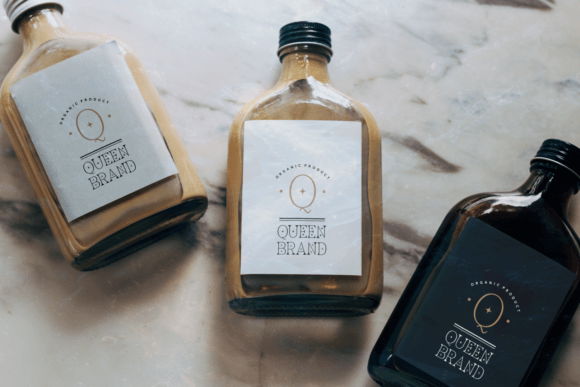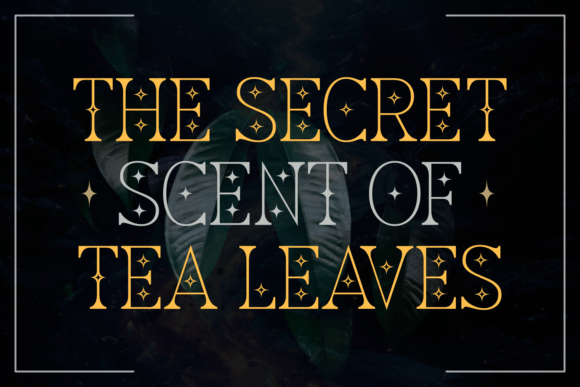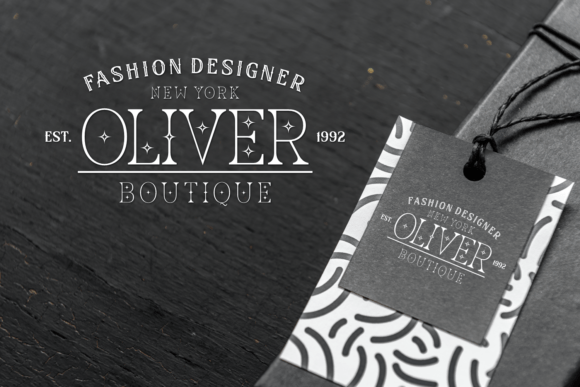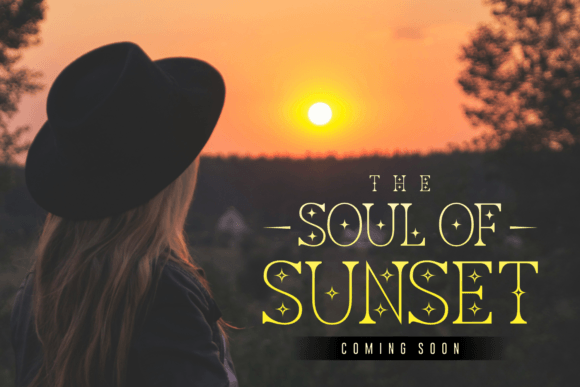
Introduction to Magic Stars Font Font
Fonts play a crucial role in design, and the Magic Stars Font font is a typeface that brings both character and versatility to any project. Whether you’re working on a branding project, a website, or a print design, the Magic Stars Font font offers a unique style that can elevate your work.
Imbued with enchantment and sophistication, Magic Stars is an awe-inspiring, modern typeface graced with celestial charm.
This serif font effortlessly unites grace and whimsy, injecting every design it touches with a dose of cosmic beauty Magic Stars is the perfect choice for crafting refined templates, engaging brochures, dynamic videos, and unforgettable branding assets.
Key Features of Magic Stars Font Font
Why Choose Magic Stars Font Font?
The Magic Stars Font font is more than just a typeface – it’s a design tool that helps you communicate your message with style and clarity. Its unique character set and versatile design make it suitable for a wide range of applications, from elegant invitations to bold headlines.
With its carefully crafted letterforms and balanced proportions, the Magic Stars Font font ensures readability and visual appeal across all mediums.
What makes Magic Stars Font font special?
The Magic Stars Font font stands out with its unique design, exceptional readability, and versatility across various design applications.